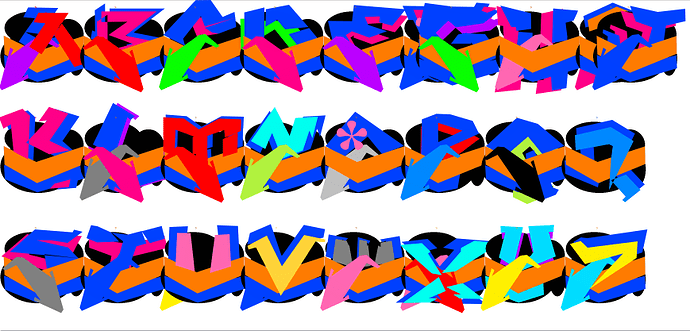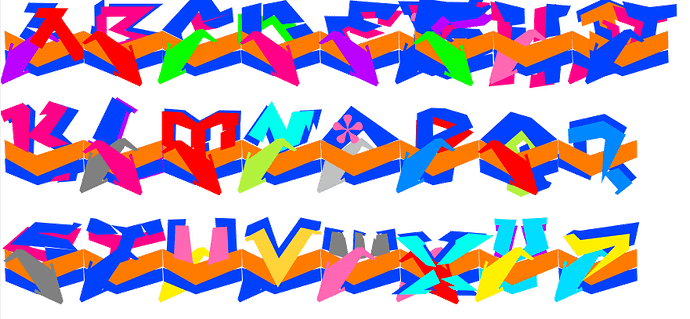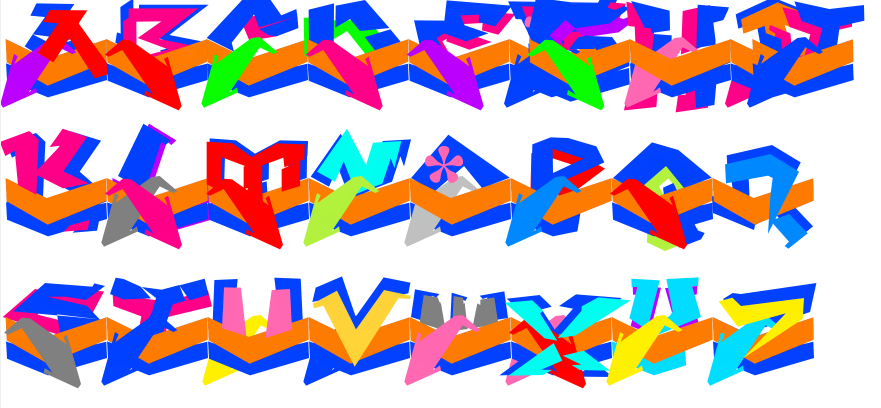
Probably the worst font I have ever seen. Almost completely unreadable. I don’t know what purpose the black circles in the background serve, but it would be just about legible without them. Gaudy colours, weird shapes, and intersecting contours. I appreciate that not every typeface needs to be the classic forms, but this font is just a mess.
This font, for example, is not a classic design. Nevertheless, it is easy to read.
There are also some bugs. The .notdef, nonmarking return, null, and space glyphs should not be used for colour glyph members. There are some stray contours in those glyphs, and the Q glyph is not fully coloured.
For what it’s worth, I agree about the poor legibility, although I’m not sure that it would be improved significantly by omitting those black blobs.
It’s much easier to scrape these graffiti off my screen than off my wall!
The font is effectively cursive, but with multiple lines.
In order to look like genuine graffiti that cover the wall (a space-filling font) it is necessary to disguise the change from one letter to the next. The main way this is achieved is by the orange chevron; this has to start and finish at the same height in every letter. (I would have inverted some of these chevrons for variety.) Most of the letters have a second cursive line in the blue chevron underneath.
I think the black circles are the classic technique of camouflage: disruptive patterns. They are so noticeable that they draw attention away from the regularity of the cursive orange and blue lines.
I always thought that the text contained in graffiti was less important than the message: “However much time you spend cleaning your property, I can vandalise it again in seconds.”